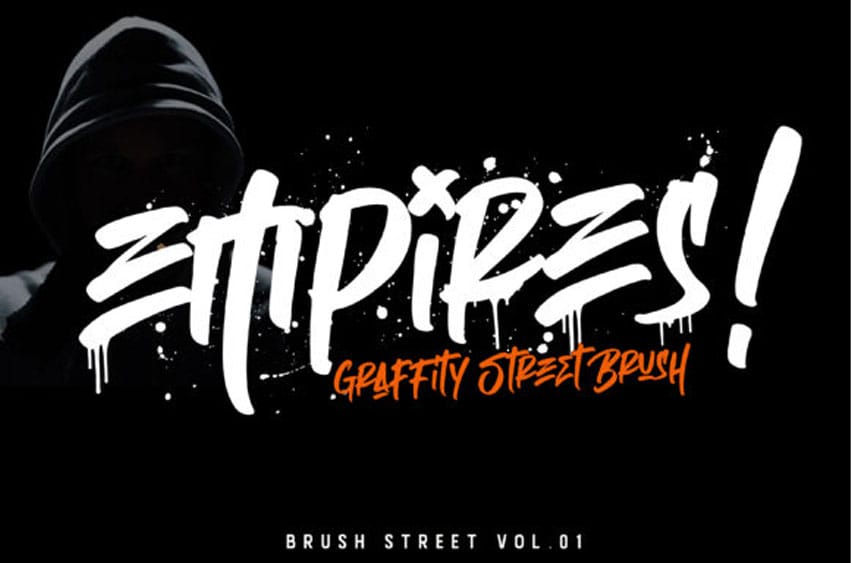
Empires Font is a supercharged, street-wise brush font bursting with energy. Included is the regular version and a swash version, which can be used to give your design some extra roughness.
It’s ideal for logos, apparel, t-shirts, hoodies, quotes, product packaging, and anything which needs a typographic turbo-boost.